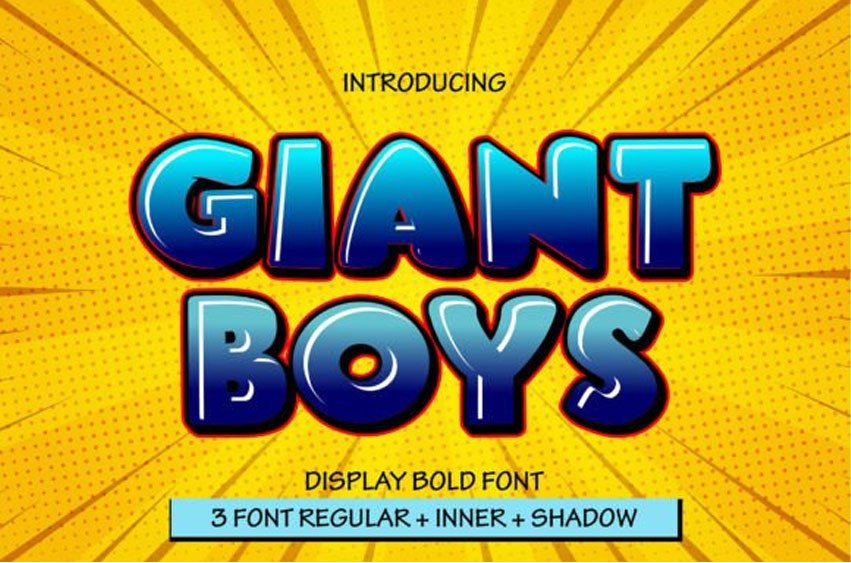
Giant Boys Font
Giant Boys Font is a cute display font characterized by thick and rounded letterforms, making it a great choice for design projects, such as children’s games, book covers, and any projects related to schools.
With its playful and friendly appearance, this font adds a touch of whimsy and charm to your designs, making them more engaging and enjoyable for young audiences.